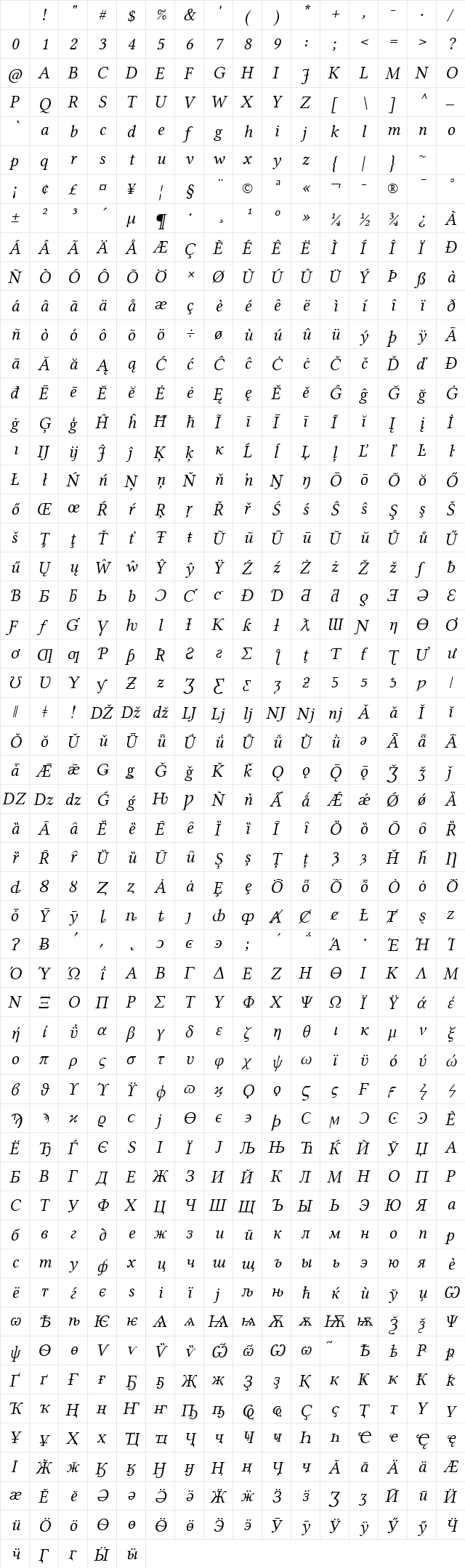
Complete Linux Libertine Italic glyph index. Displaying only characters natively supported by Linux Libertine Italic font.
Linux Libertine is a composed and adaptable typeface that performs quietly and consistently across a wide range of design contexts. The slanted form adds forward momentum and visual energy.
Pro Tip: Use Linux Libertine for emphasis, pull quotes, and subheadings where its slanted energy can add rhythm to the layout.